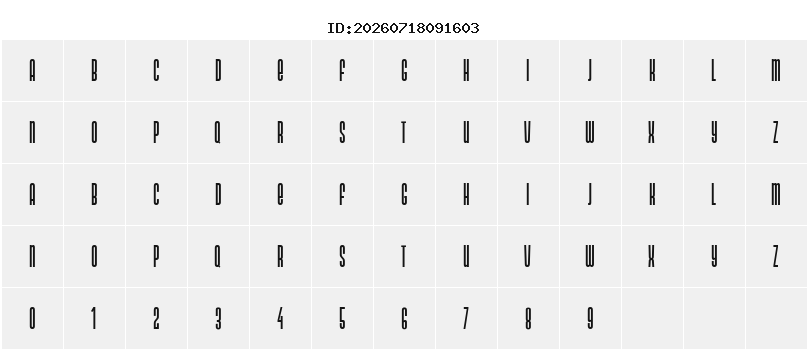
CgNeon Preview
• Font Name: CgNeon
• Full Font Name: CgNeon-ExtraCondensed
• PostScript Name: CgNeon-ExtraCondensed
About CgNeon.ttf
CgNeon.ttf is a modern, elegant sans-serif font designed for ultimate readability and visual harmony. Perfect for branding, headlines, web design, and print materials.